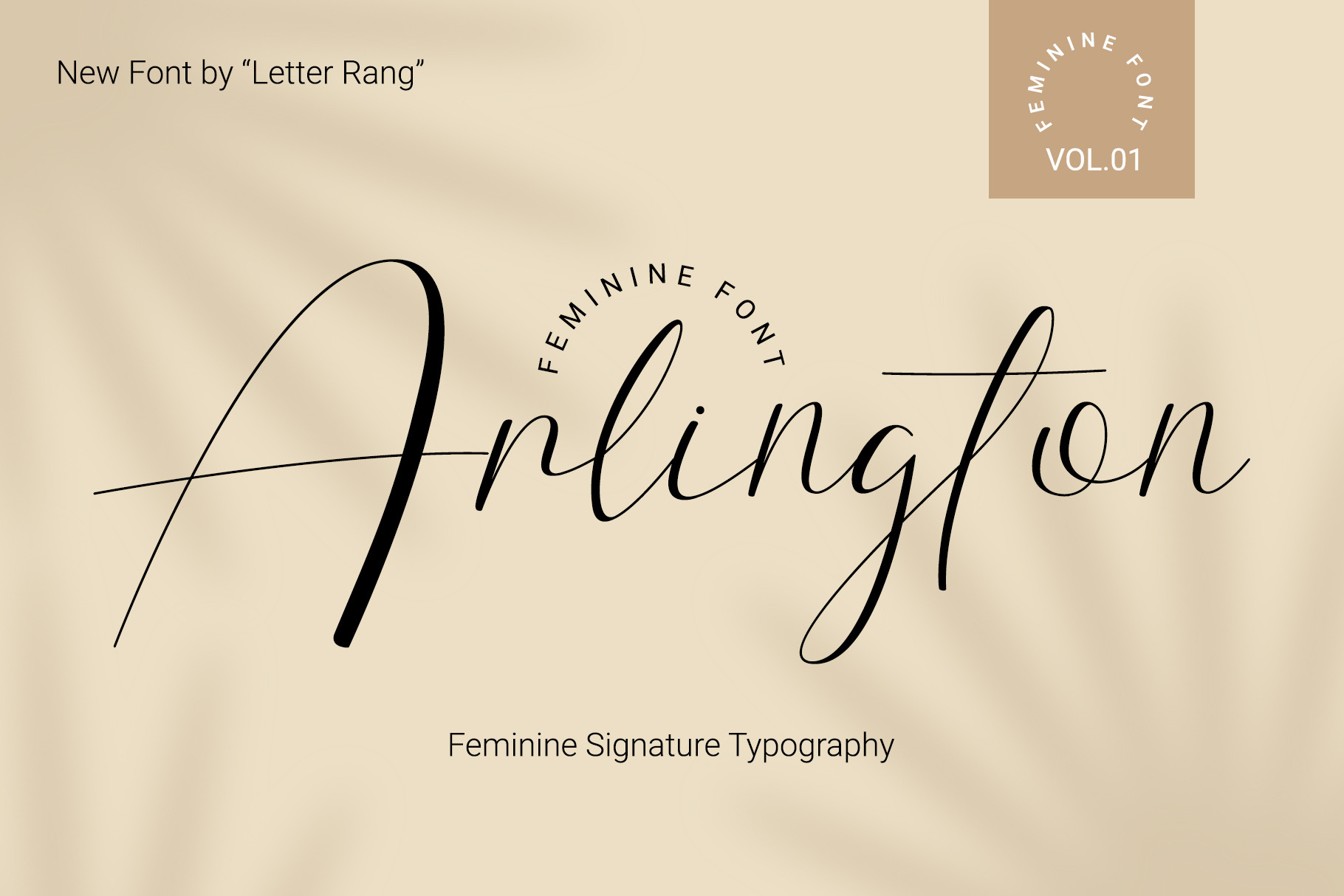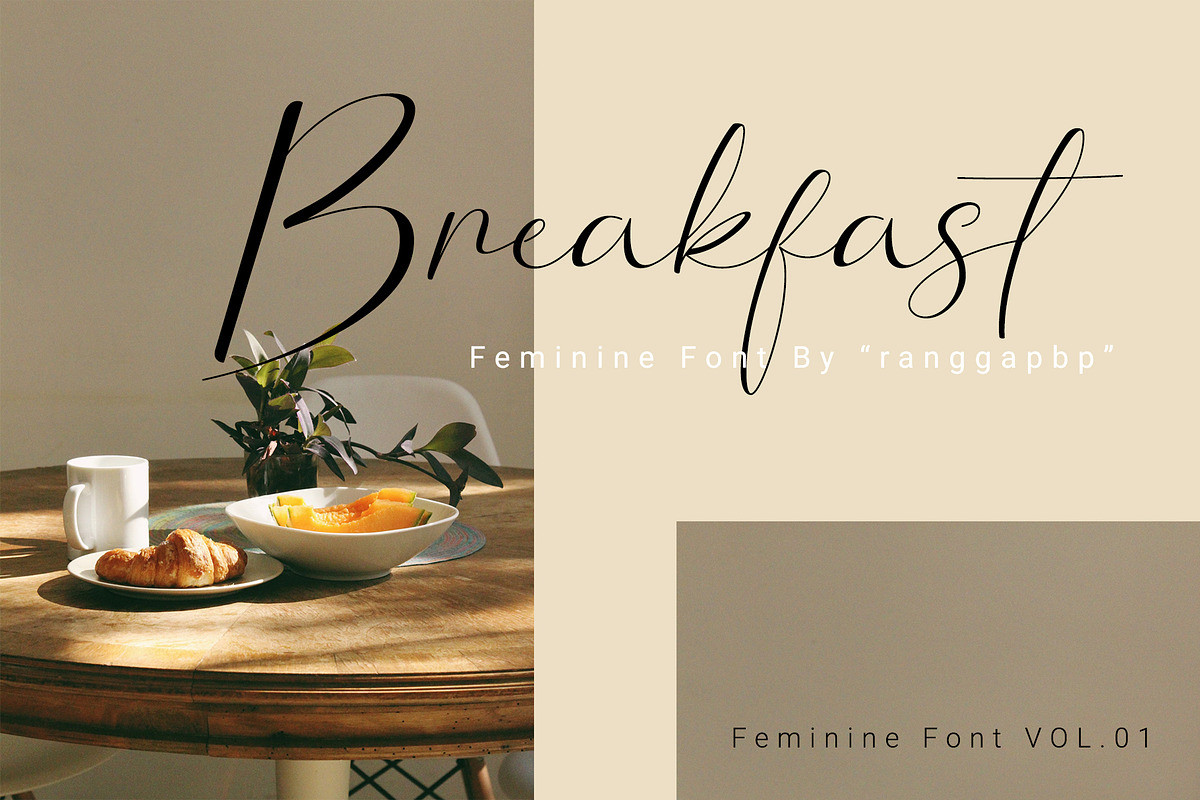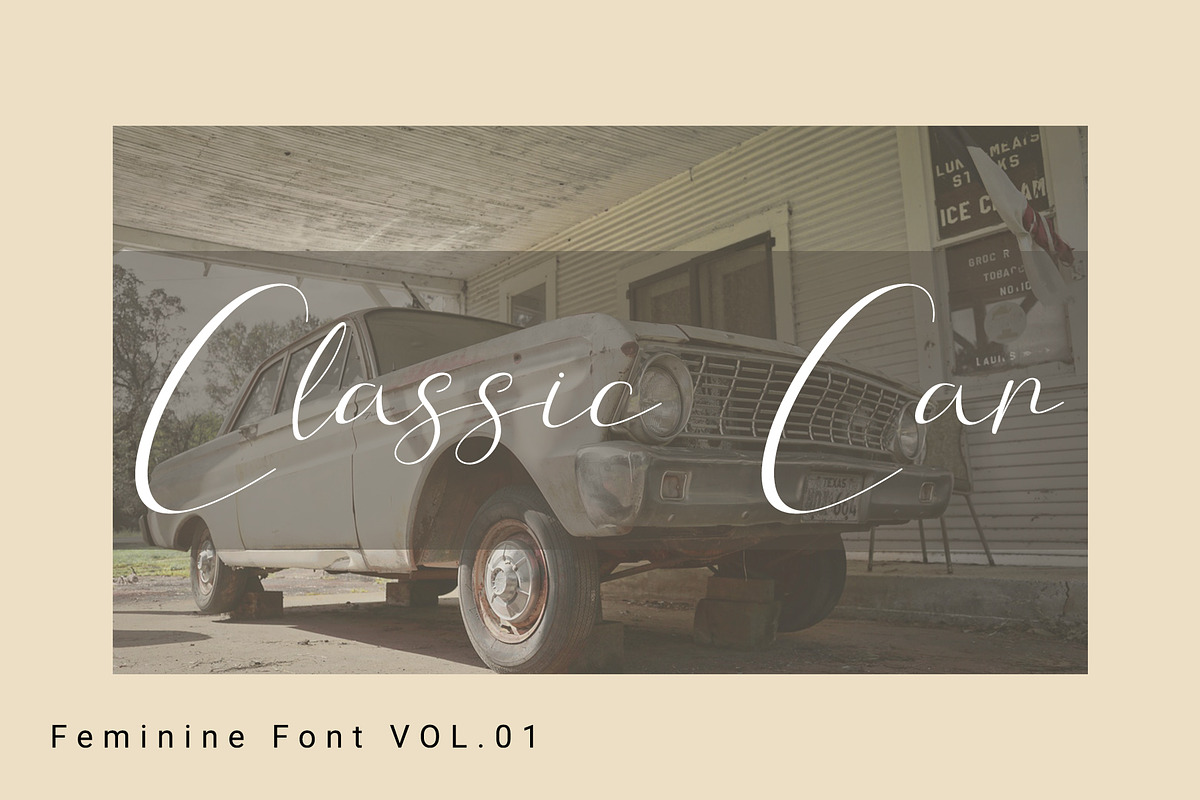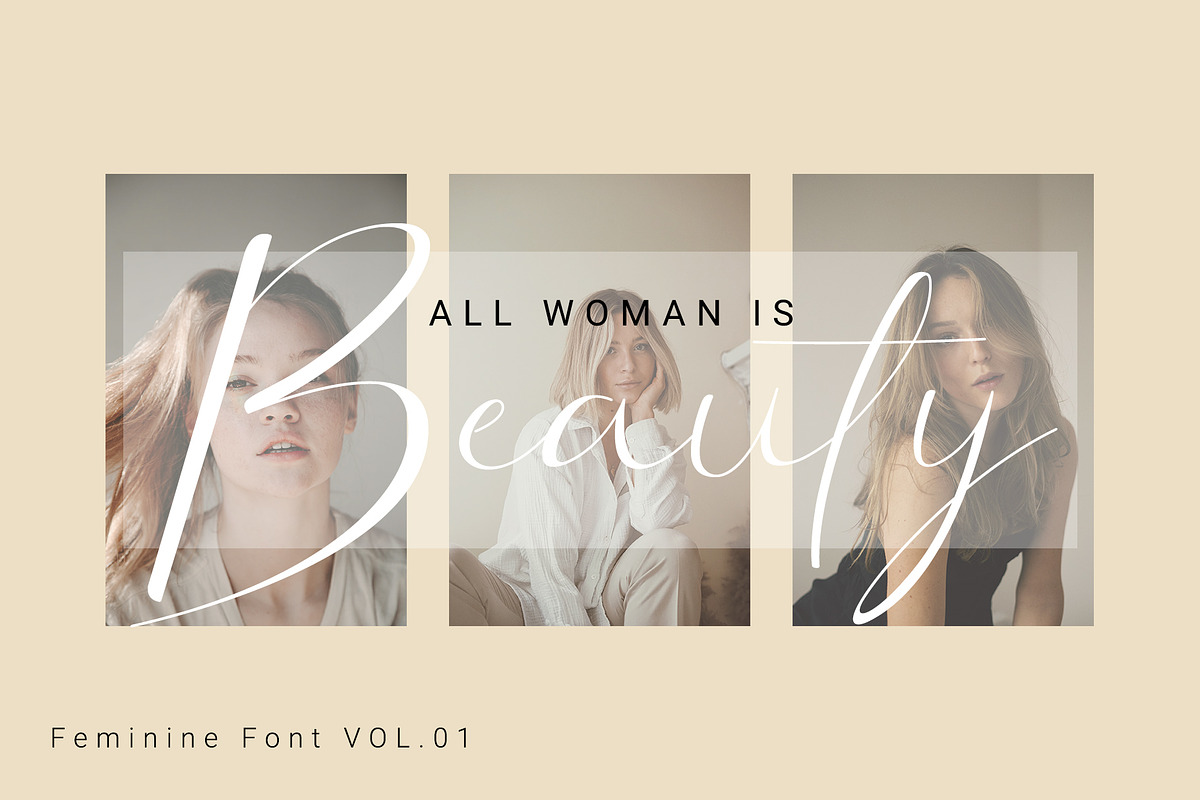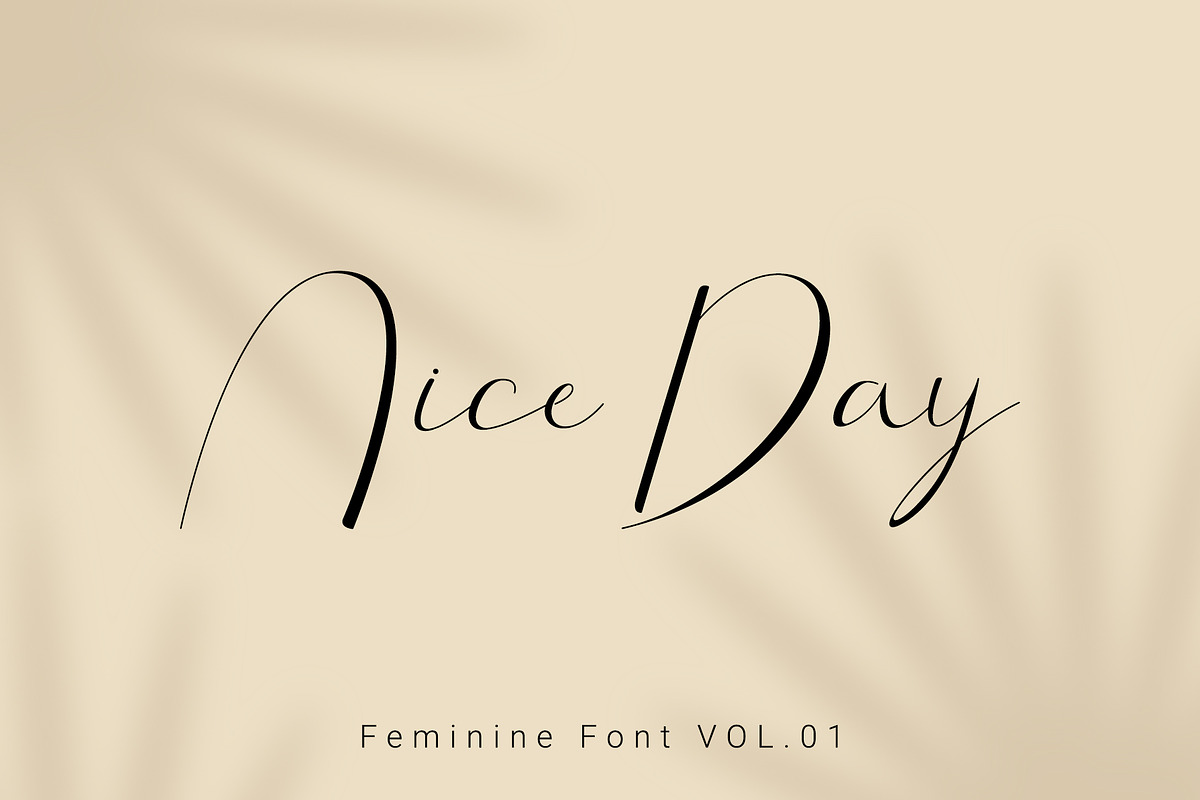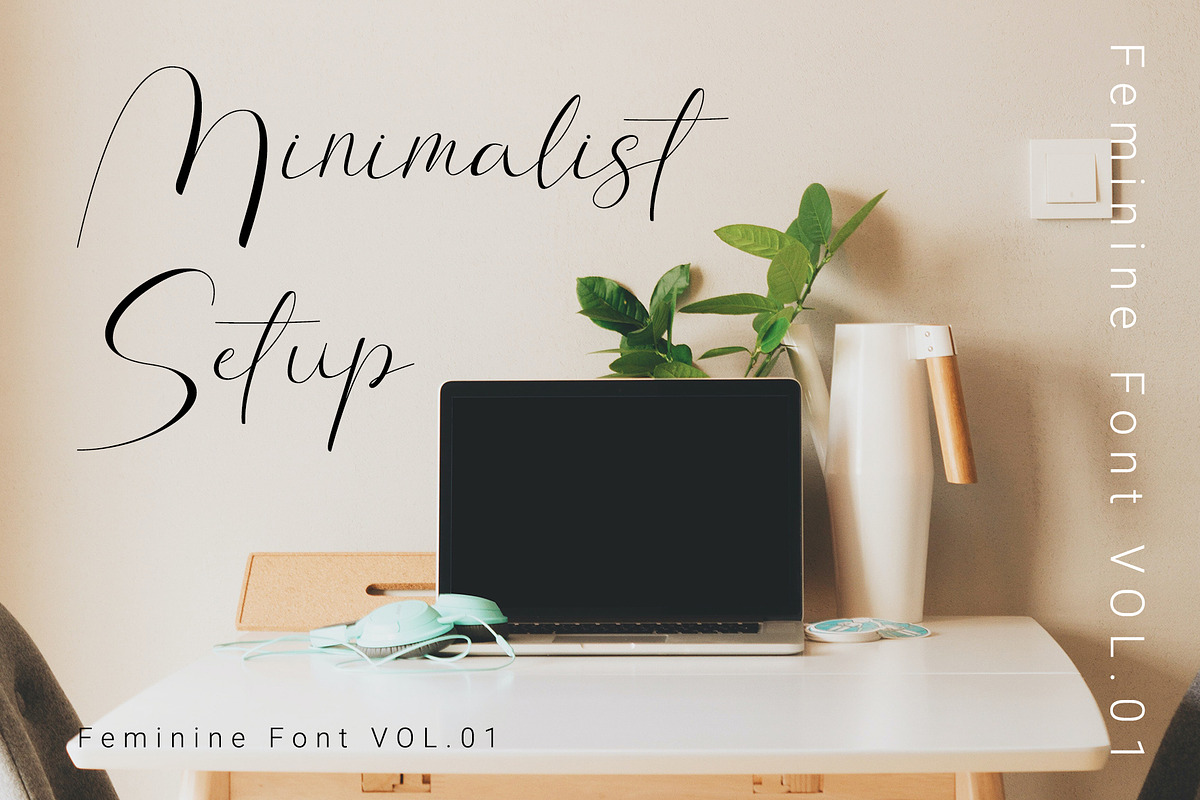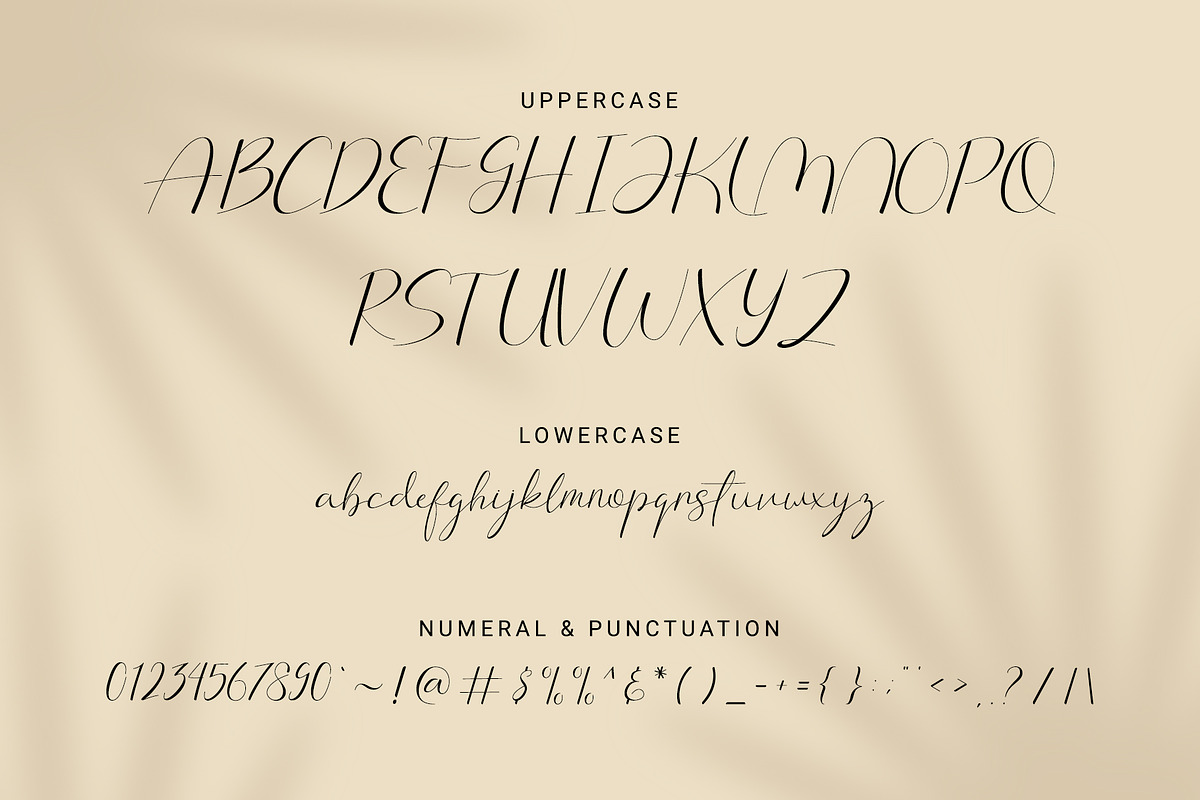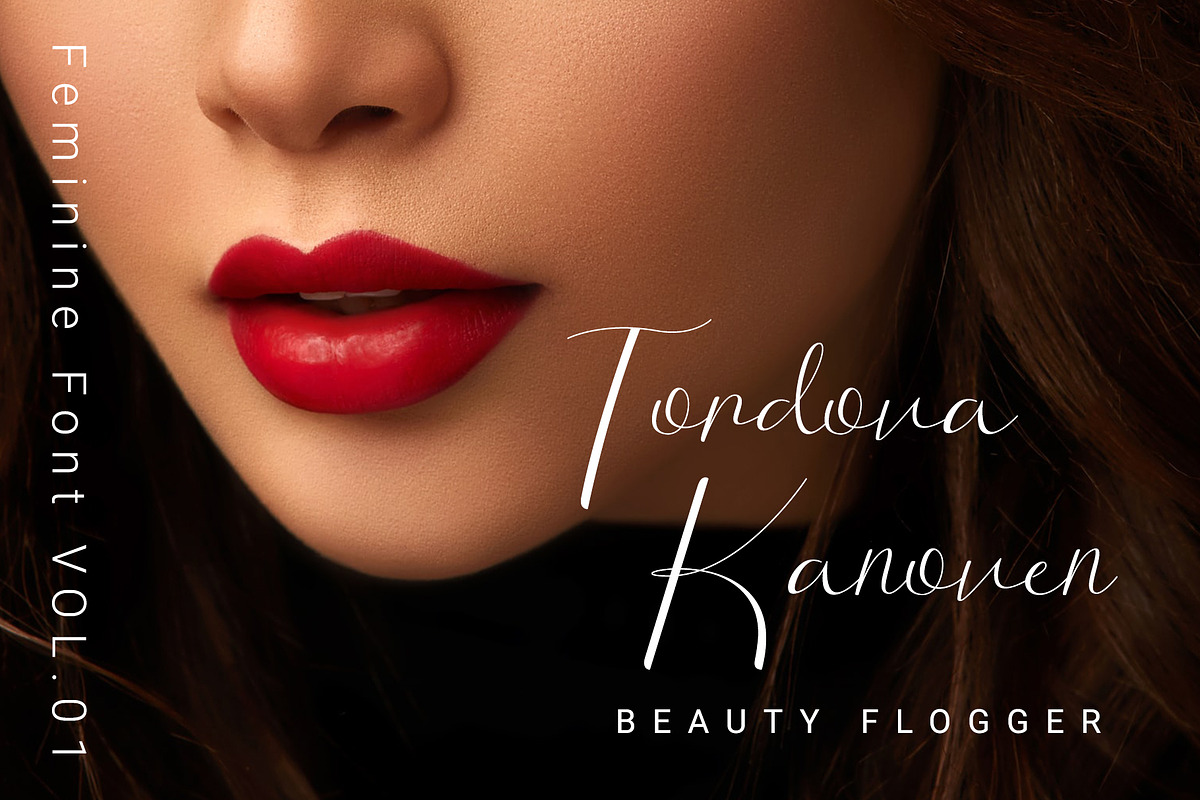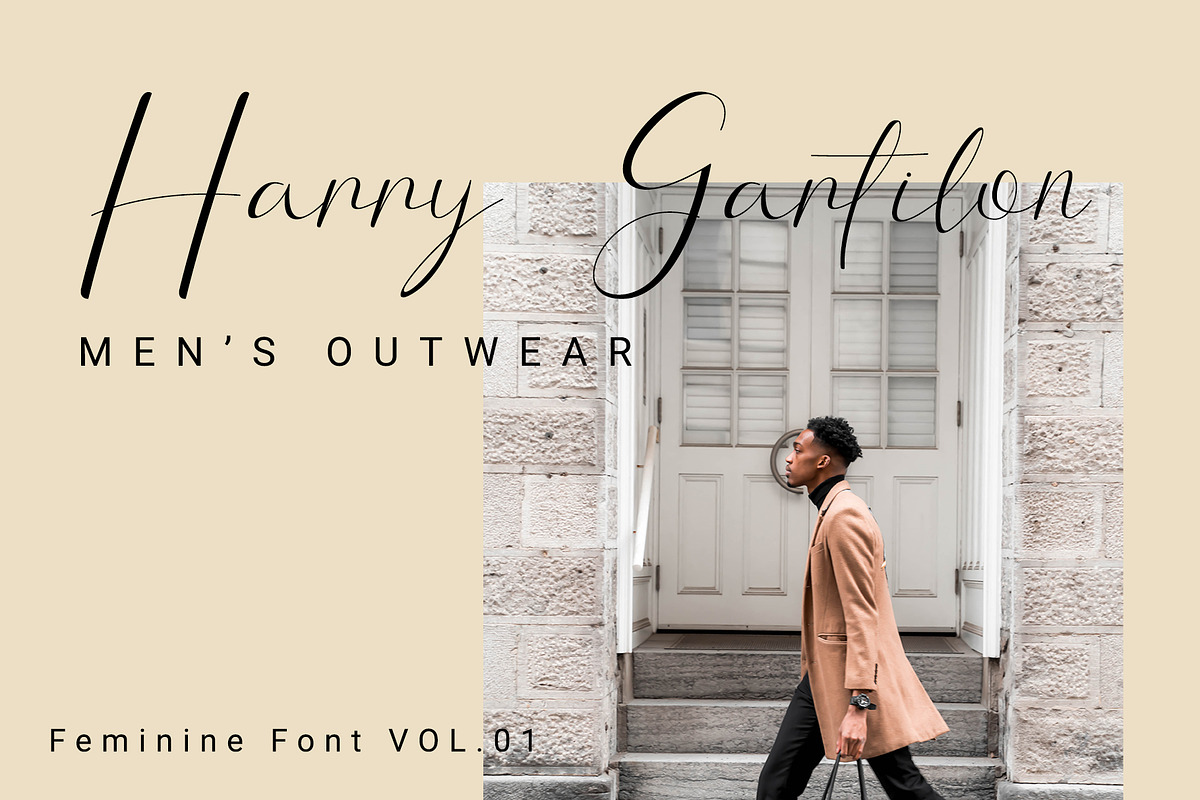
Arlington | Feminine Font
Hi. How are you. This is a new font that I created. I named this font "Arlington".
Arlington is a font inspired by the signature and gentleness of a woman. This font has a feminine style that is perfect for invitation cards, logos, brands, greeting cards, signatures, and much more.